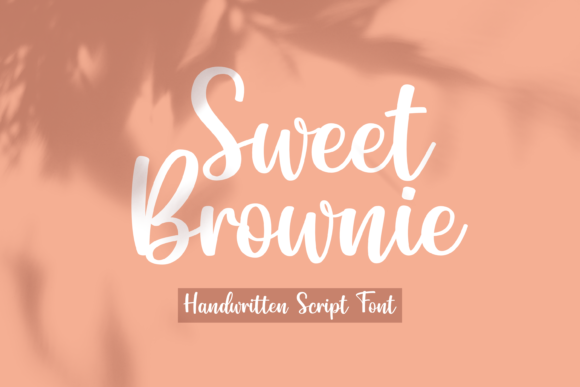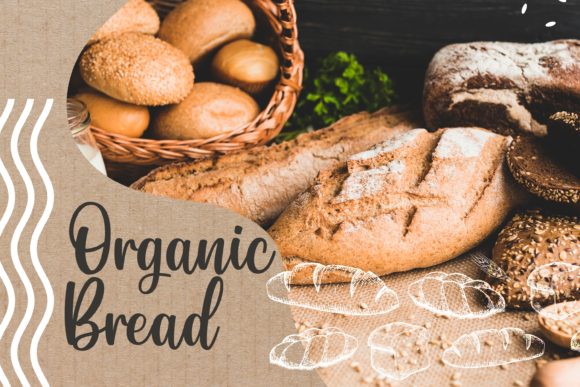
Sweet Brownie is a sweet and cursive handwritten font. This gentle font will look gorgeous on a variety of design ideas. It will add a joyful and romantic touch to each of your projects!
Sweet Brownie Font